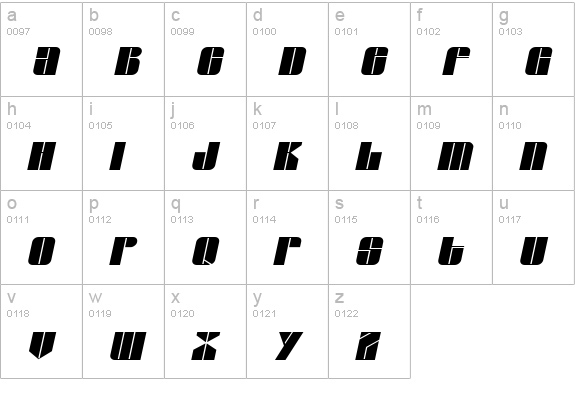
Grover Italic Font Details
Grover Italic is a distinctive, italic variant in the Grover typeface family \xE2\x80\x94 well suited to design and typography projects.
Grover Italic font is a stylish and modern typeface that exudes sophistication and elegance. Its sleek and slanted design adds a touch of flair to any project, making it perfect for branding, advertising, and editorial purposes. The italicized characters create a sense of movement and fluidity, adding a dynamic element to your text. The Grover Italic font is not only visually appealing but also highly versatile, suitable for a wide range of design applications. Whether you're working on a website design, logo creation, or print materials, this font will elevate your project to the next level. Best of all, Grover Italic font is available for free download at FontsMarket.com. Now you can access this premium font without any cost, making it a valuable addition to your font library. Don't miss out on the opportunity to enhance your designs with the elegant and modern Grover Italic font.